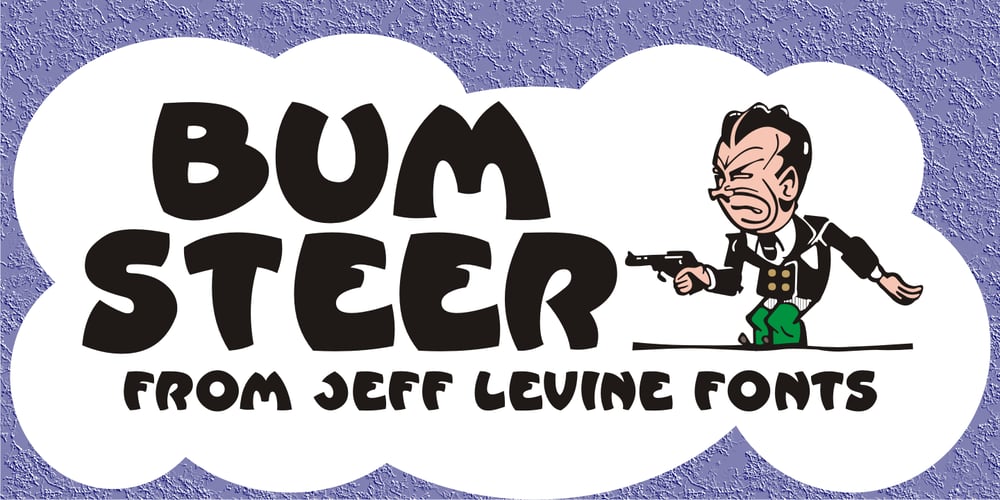
Bum Steer JNL Font Family was designed by Jeff Levine and published by Jeff Levine. Bum Steer JNL contains 1 styles and family package options. In older American slang, a “bum steer” is a bad tip, some bad advice or being sent in the wrong direction (to name a few examples). Bum Steer JNL was modeled from some playful hand lettering found on a piece of early 20th Century sheet music entitled “When Uncle Joe Plays a Rag on His Old Banjo”. It’s very possible that “Hobo” (a popular type design of the time) was a strong influence on the sheet music’s style of title lettering. It seems that songwriters in those bygone days were prone to cramming as many words from a line of their song into the title itself. Another such example of a wordy song title which coincidently is in keeping with the theme of a “bum steer” (pun intended) is a novelty number from 1915: “Cows May Come and Cows May Go but the Bull Goes on Forever” (words by Vincent Bryan, music by Harry Von Tilzer). [It’s kind of self-descriptive, don’t you think?]